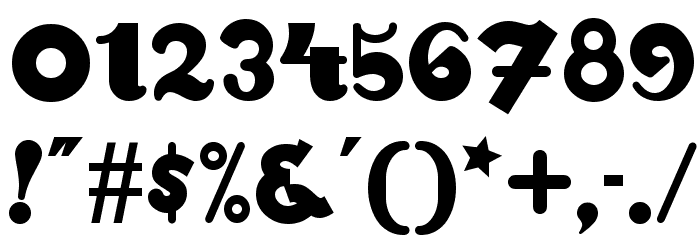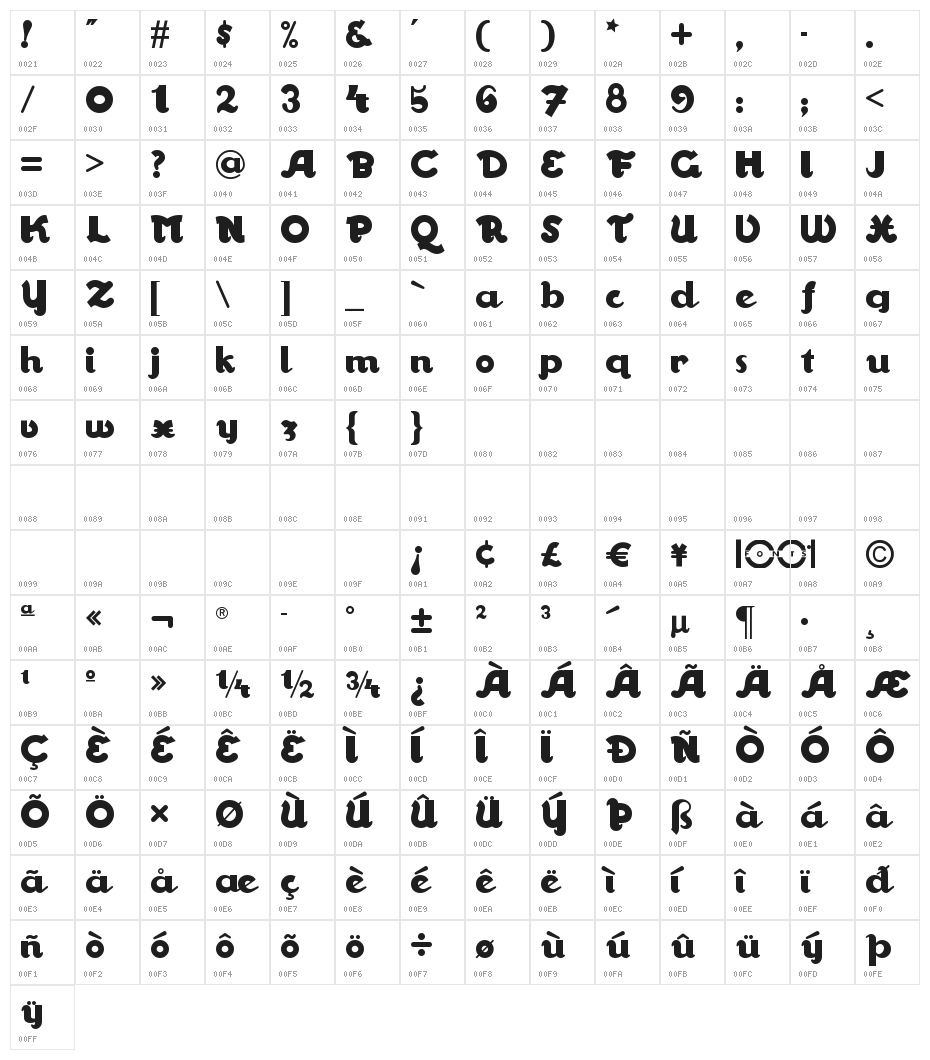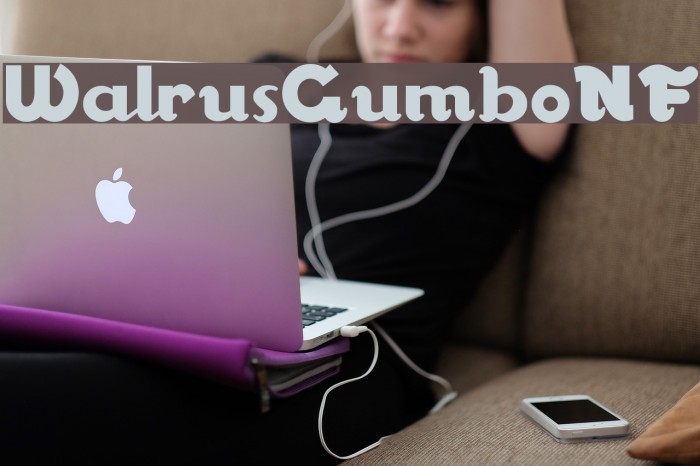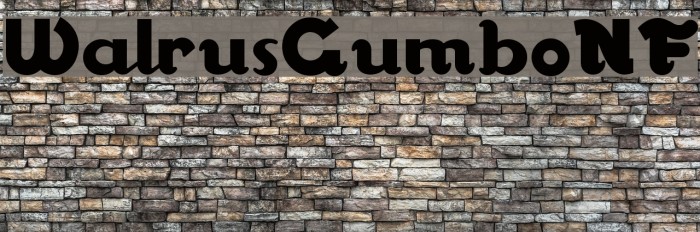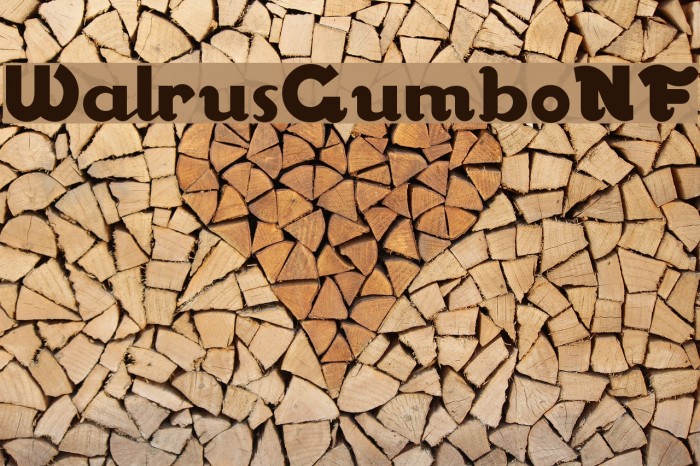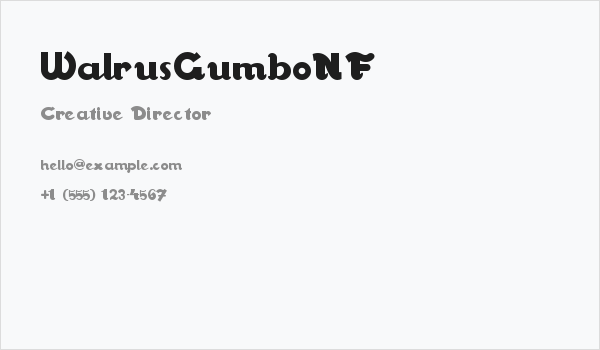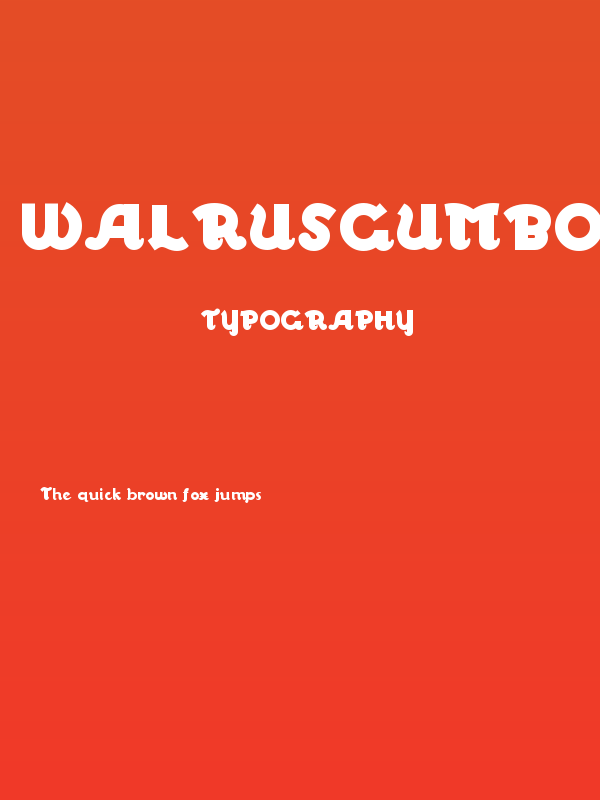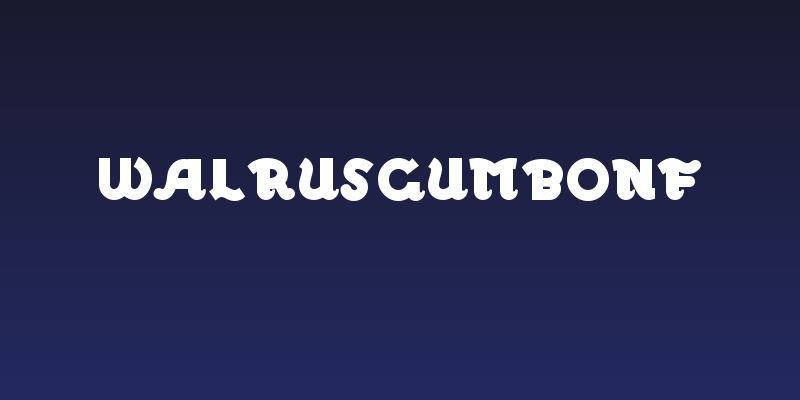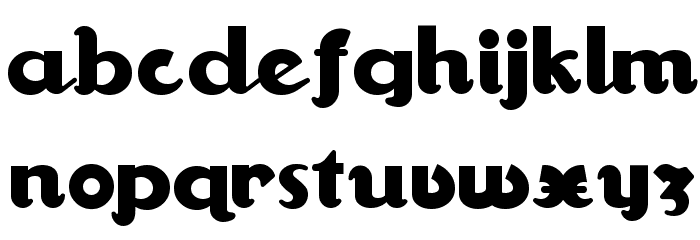
WalrusGumboNF Font
WalrusGumboNF Description
This font features a bold and playful design with thick, rounded strokes that give it a whimsical and friendly appearance. The characters are uniquely styled with a slight retro flair, making them stand out with their distinctive curves and loops. The uppercase letters are bold and commanding, while the lowercase letters maintain a consistent style that complements the overall design. Numbers and special characters are equally bold and maintain the playful aesthetic, making them suitable for a variety of creative applications. The font's unique style is perfect for projects that require a fun and engaging look.
| Overall Style | Playful, Retro |
| Proposed Projects | Ideal for children's books, playful branding, posters, and creative advertising. |